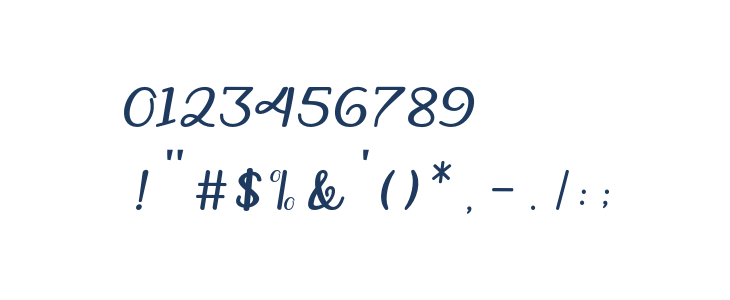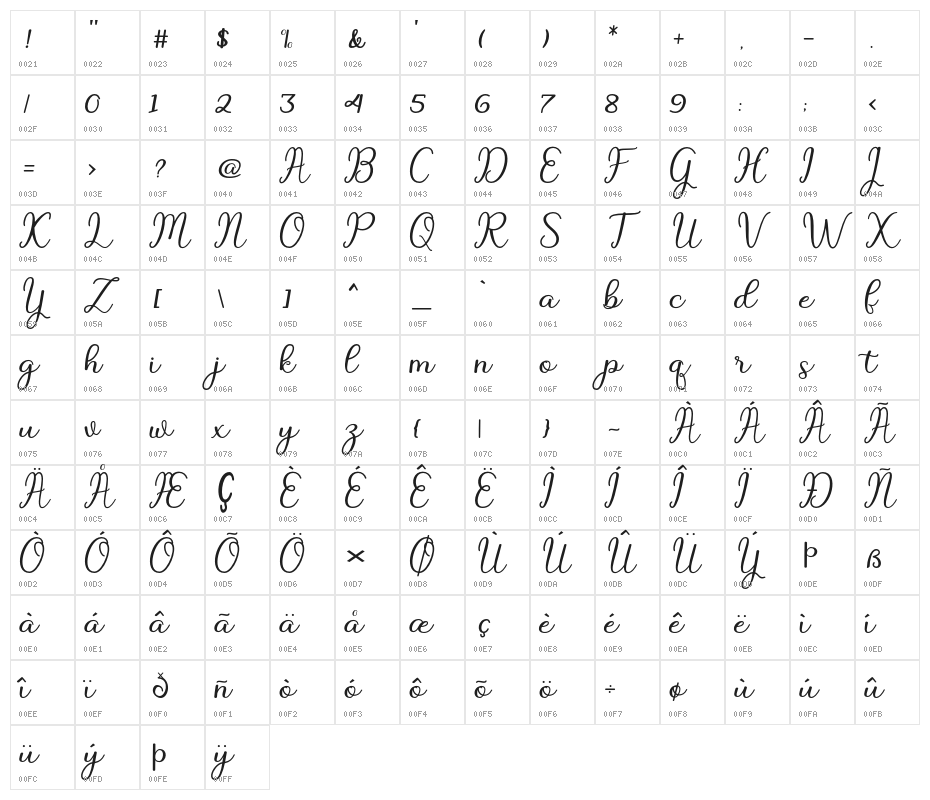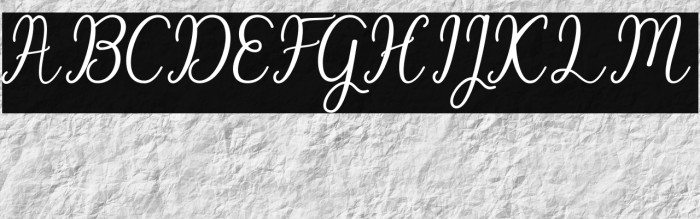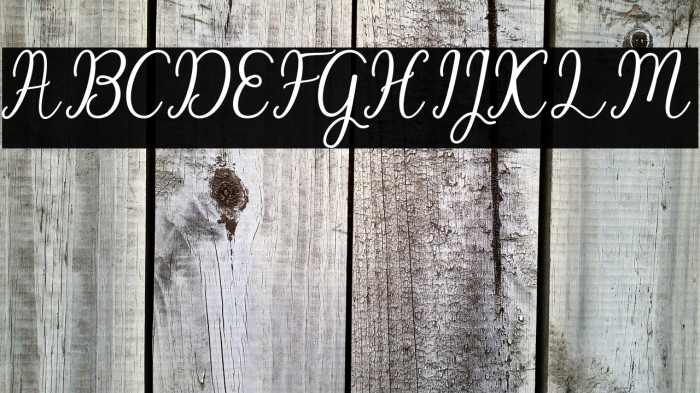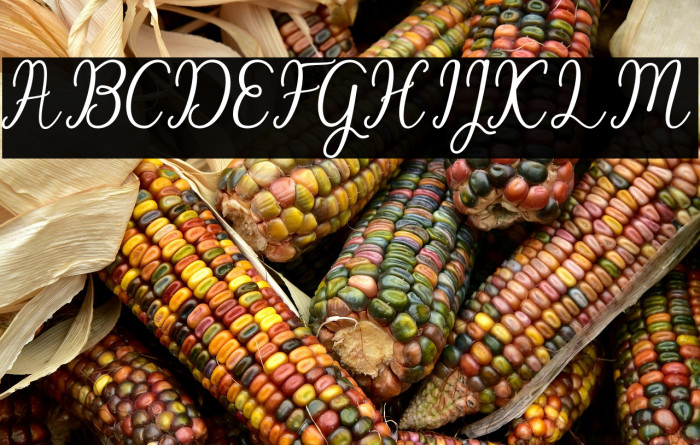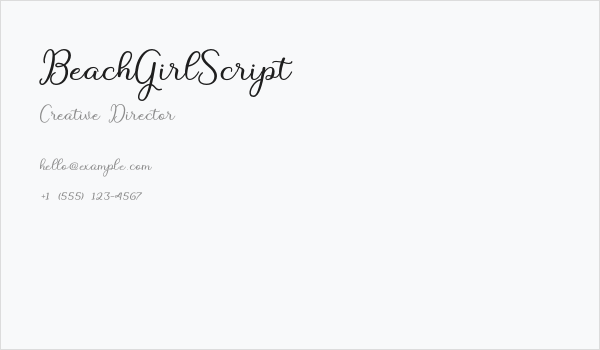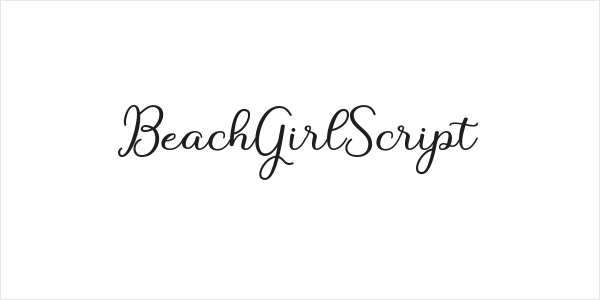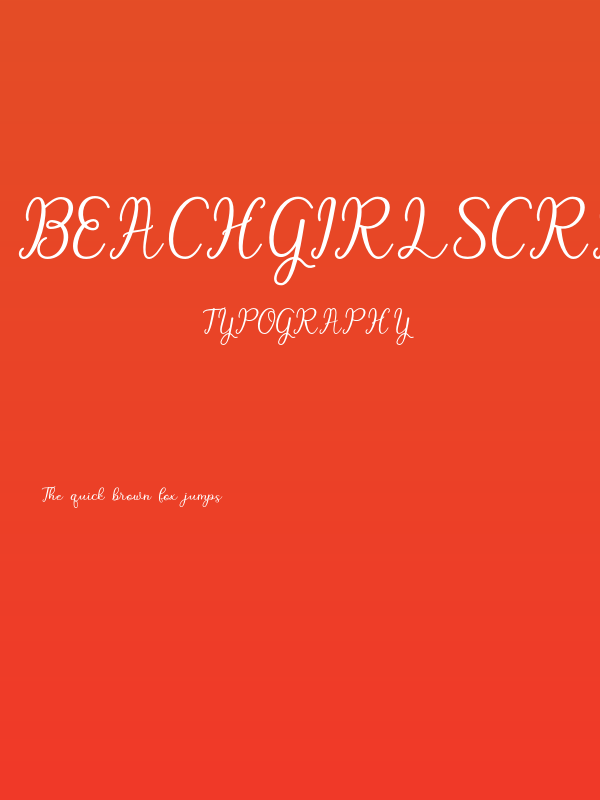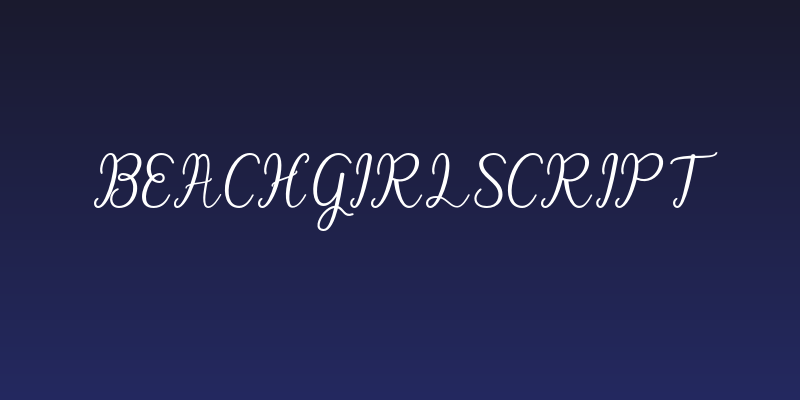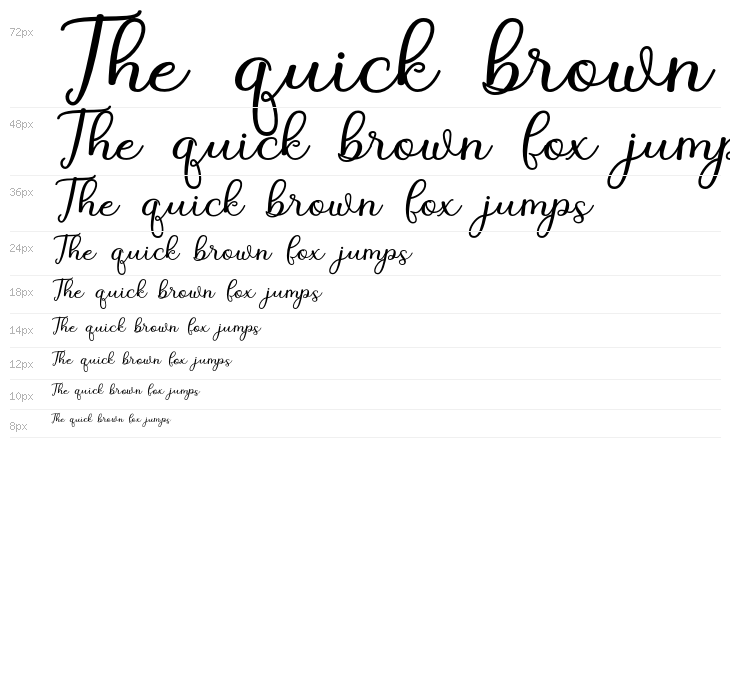
BeachGirlScript Font
BeachGirlScript Description
This font exudes a playful and casual elegance, characterized by its flowing script style that mimics natural handwriting. The letters are connected in a fluid manner, creating a sense of movement and grace. The uppercase letters are slightly more ornate, with subtle flourishes that add a touch of sophistication. The lowercase letters maintain a consistent rhythm, enhancing readability while retaining a charming personality. The numerals and special characters complement the alphabet with their cohesive design, ensuring versatility across various applications.
| Use Case | Logos, Invitations, Personal Branding |
| Proposed Projects | Ideal for wedding invitations, greeting cards, personal branding, and any project requiring a touch of elegance and personality. |